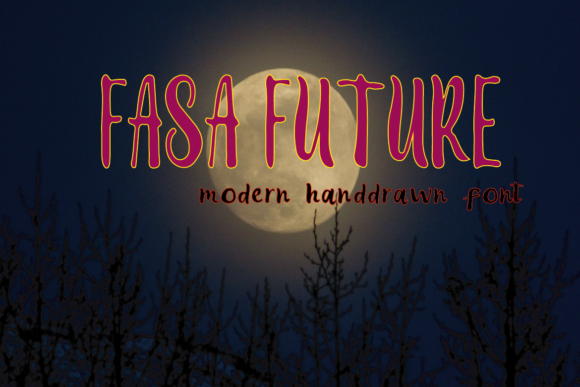
Fasa Future Font: Elevate Your Designs with a Modern and Handwritten Touch
In the world of design, fonts play a crucial role in conveying the message and aesthetic of a brand or creative project. With the vast array of fonts available, it can be challenging to find the perfect one that stands out from the crowd. However, if you’re looking for a modern and handwritten font that can make every word you create more eye-catching, look no further than Fasa Future Font.
What is Fasa Future Font?
Fasa Future Font is a unique and stylish font designed to add a personal touch to your designs. This handmade font is crafted to ensure that the strokes of the letters are natural and beautiful to look at, giving your text a warm and organic feel. With its modern and handwritten style, Fasa Future Font is perfect for a wide range of design applications, including social media post designs, branding, merchandise, posters, comics, and display.
Key Features of Fasa Future Font
- Handmade with love: Each letter is carefully crafted to ensure a natural and beautiful look.
- Modern and handwritten style: Adds a personal touch to your designs and sets them apart from the crowd.
- Versatile: Suitable for various design applications, including social media posts, branding, merchandise, posters, comics, and display.
- Easy to read: The clear and legible design ensures that your message is conveyed effectively.
Why Choose Fasa Future Font?
In today’s competitive design landscape, it’s essential to have a font that can help you stand out. Fasa Future Font offers a unique and stylish solution that can elevate your designs and make them more engaging. Here are some reasons why you should consider choosing Fasa Future Font:
- Unique and original: Fasa Future Font is a one-of-a-kind font that will set your designs apart from others.
- High-quality design: The font is designed with precision and attention to detail, ensuring a professional look.
- Multipurpose: The font can be used for a wide range of design applications, making it a valuable addition to your font library.
Design Ideas with Fasa Future Font
Fasa Future Font is a versatile font that can be used for a wide range of design applications. Here are some design ideas to get you started:
- Social media posts: Use Fasa Future Font to create eye-catching social media posts that stand out from the crowd.
- Branding and logos: Create a unique and memorable brand identity with Fasa Future Font.
- Merchandise: Use Fasa Future Font to create stylish and eye-catching merchandise, such as t-shirts, mugs, and tote bags.
- Posters and flyers: Create bold and attention-grabbing posters and flyers with Fasa Future Font.
- Comics and illustrations: Add a personal touch to your comics and illustrations with Fasa Future Font.
In conclusion, Fasa Future Font is a modern and handwritten font that can elevate your designs and make them more eye-catching. With its unique and stylish design, Fasa Future Font is perfect for designers and crafters looking to add a personal touch to their work. Whether you’re creating social media posts, branding, merchandise, posters, comics, or display, Fasa Future Font is a versatile and valuable addition to your font library.